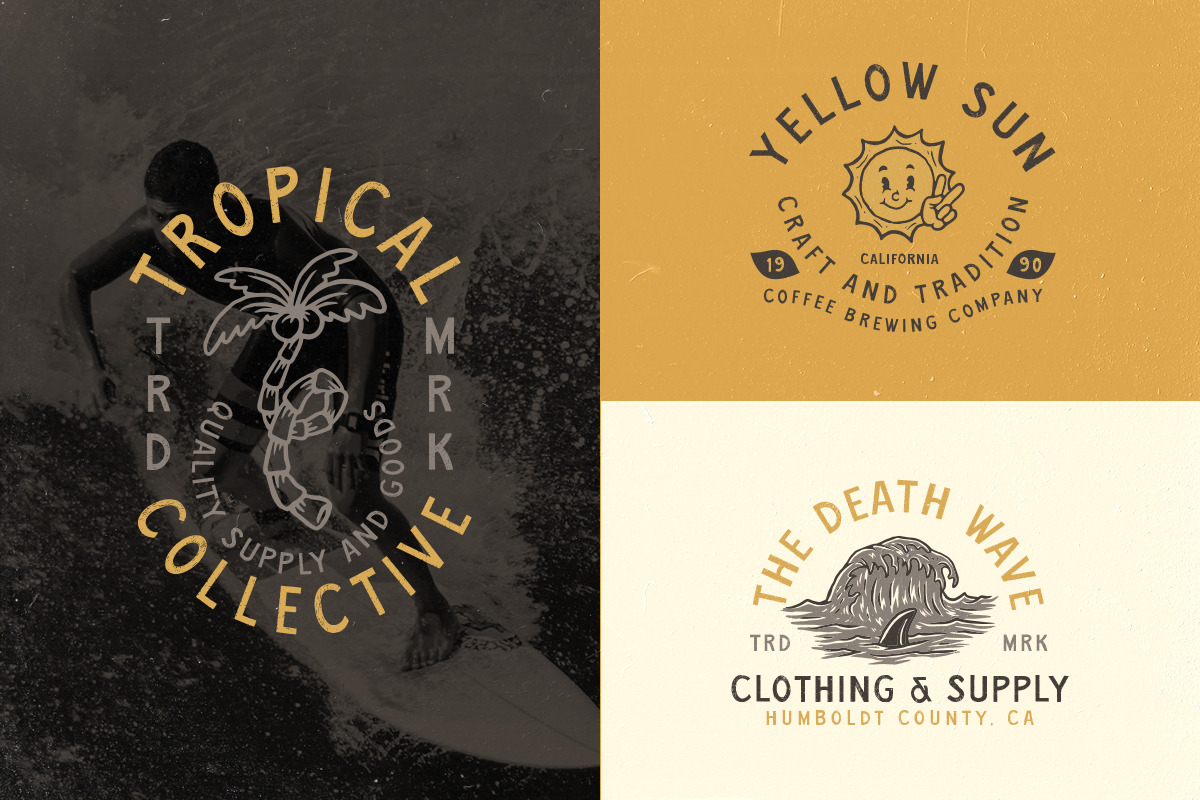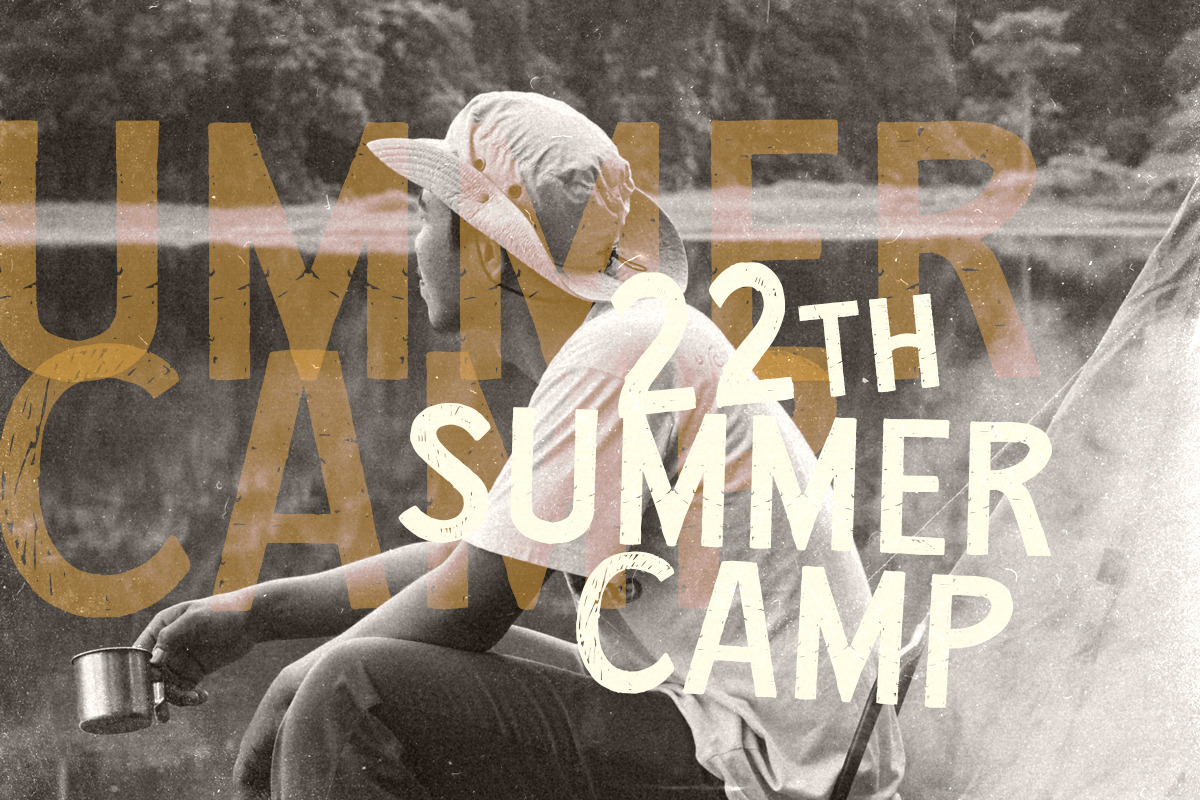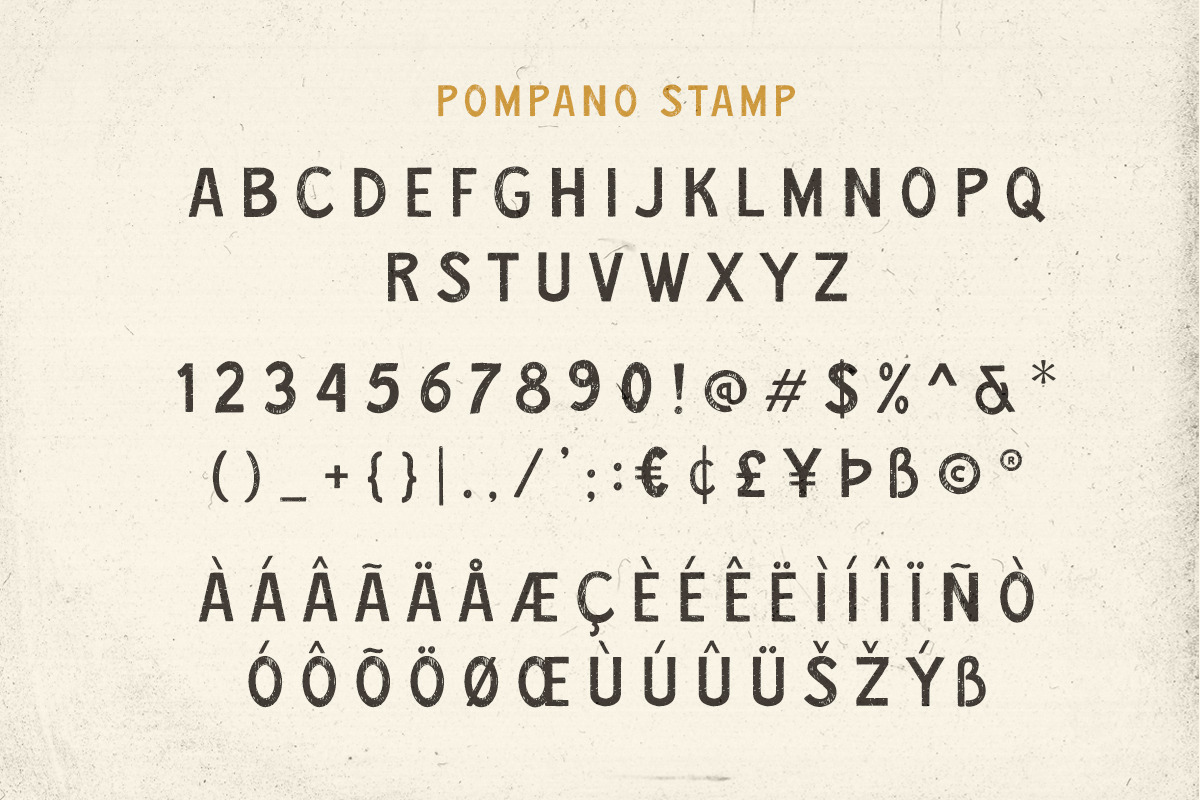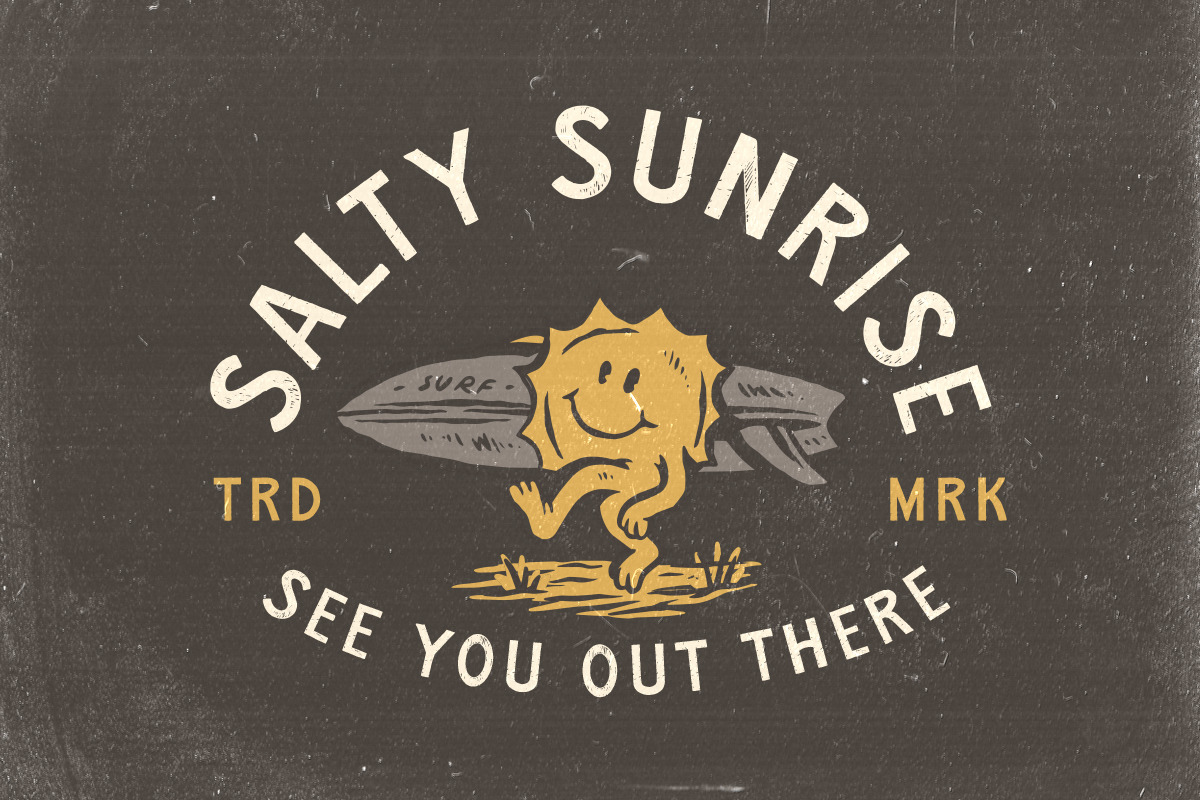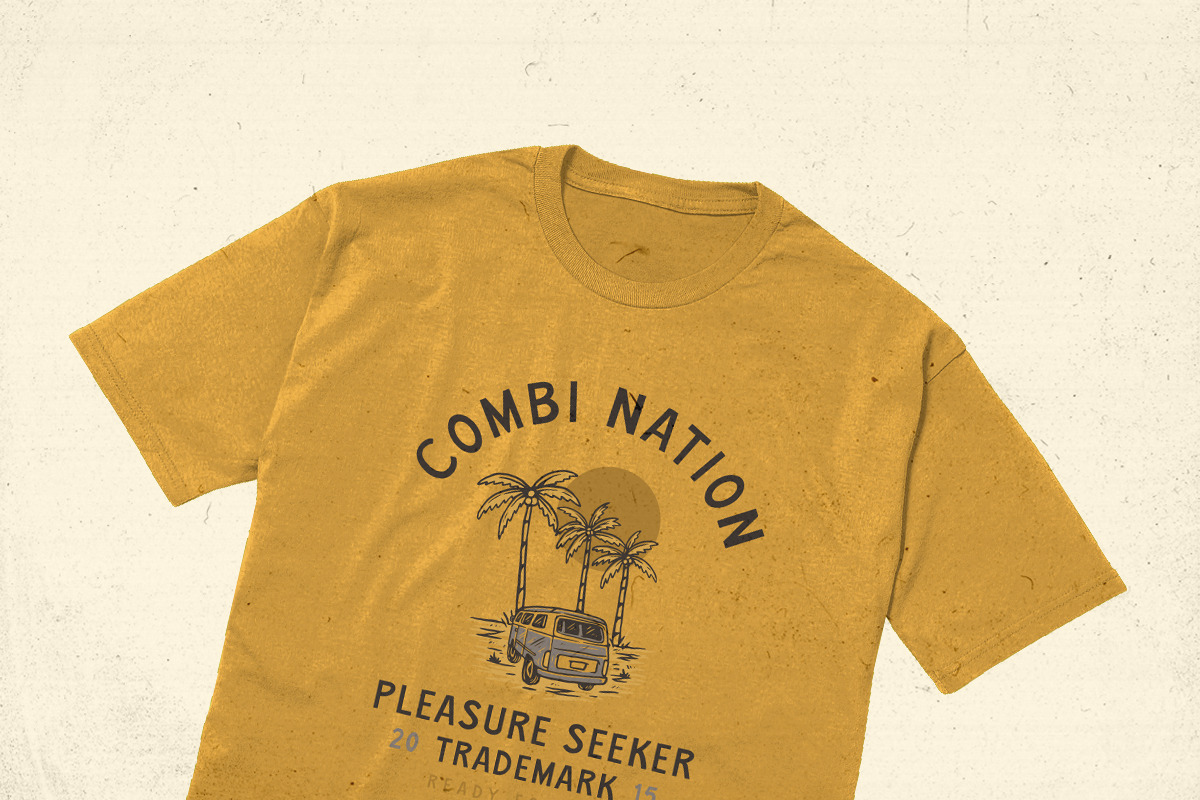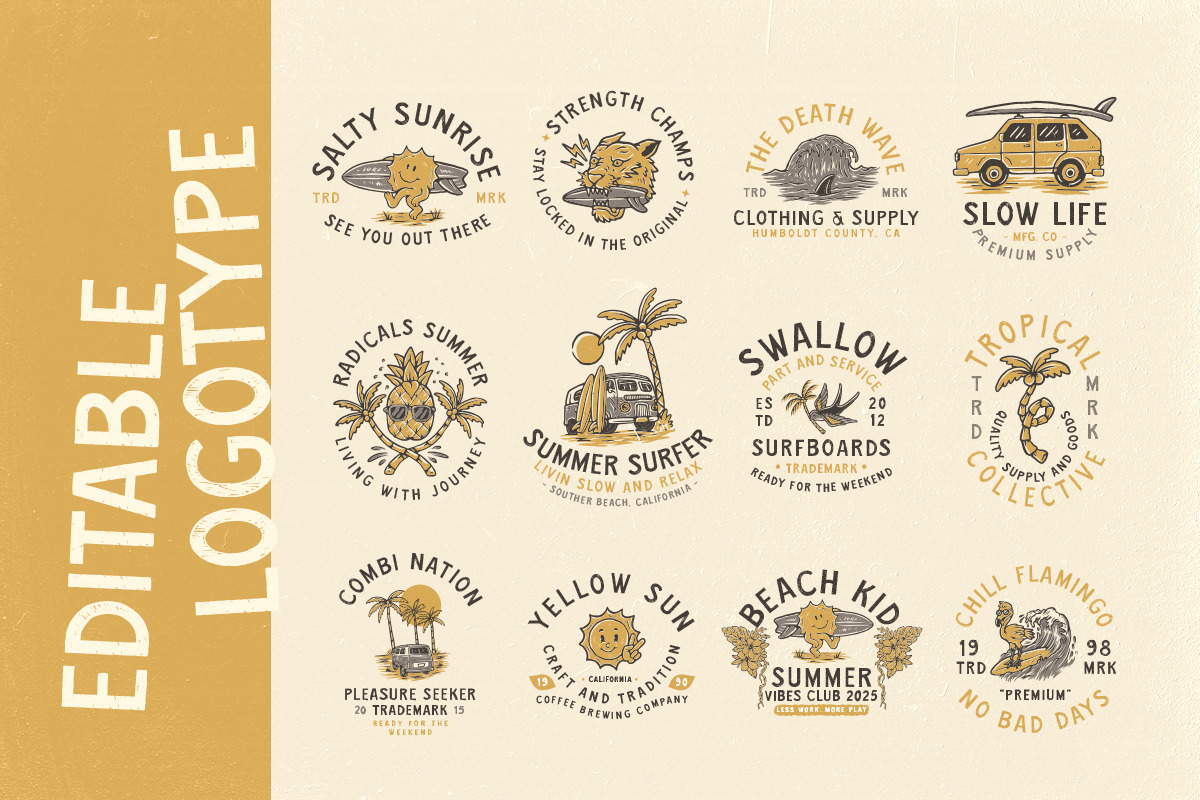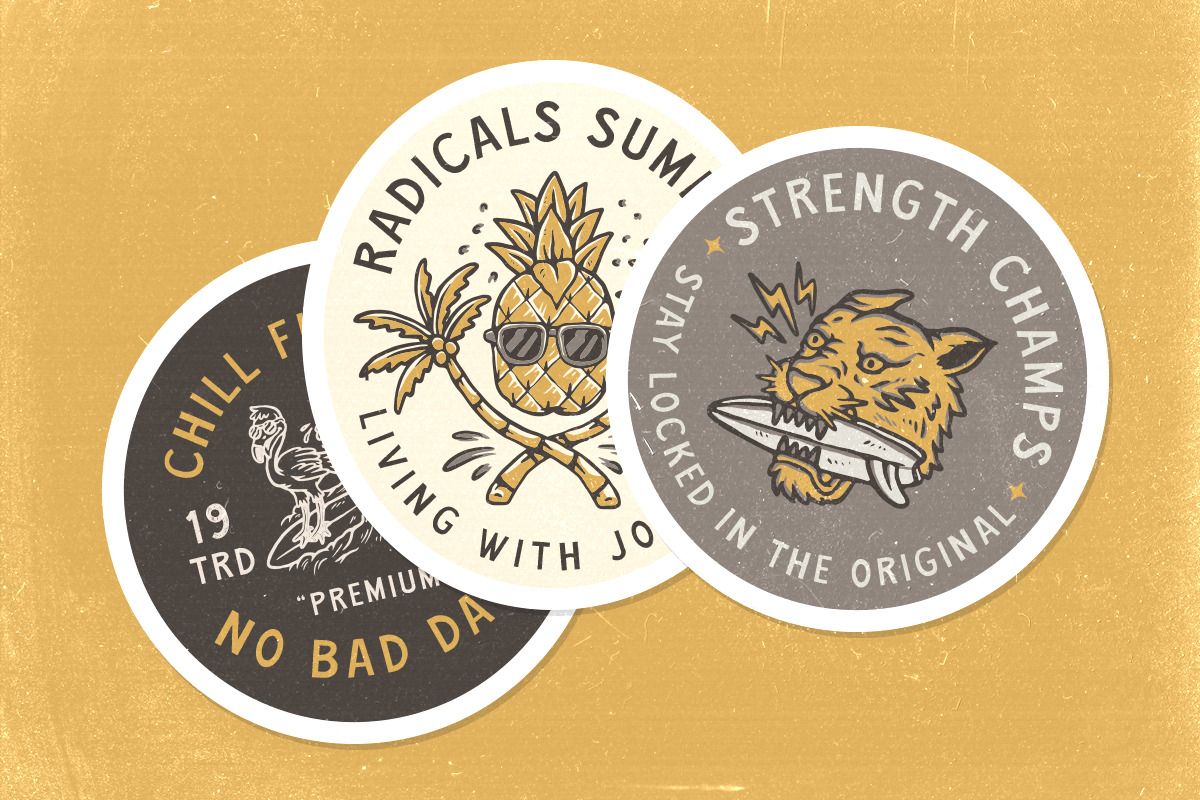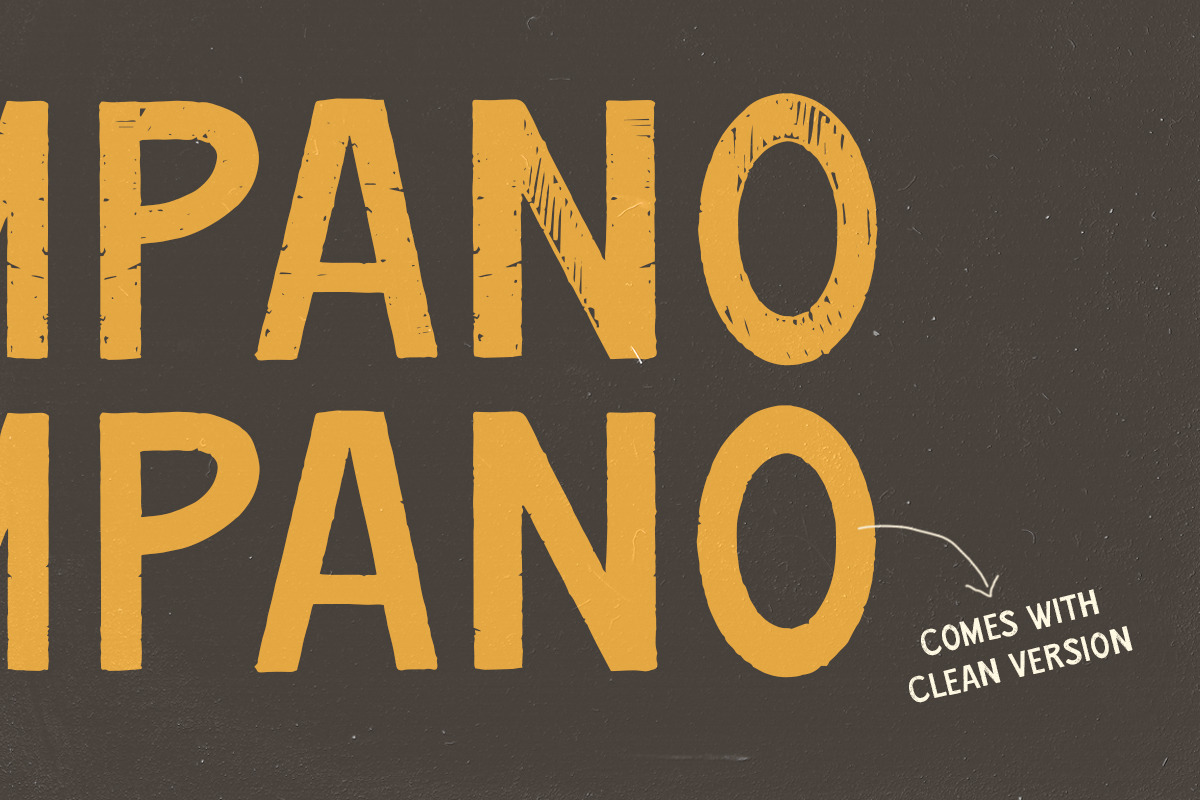
Pompano - Organic Sans (Free Logos!)
Pompano is a organic sans serif typeface which is purposely made for headline, display or logotype. It comes with 12 logo templates. This type of font perfectly made to be applied especially in logo, and the other various formal forms such as invitations, labels, logos, magazines, books, greeting / wedding cards, packaging, fashion, make up, stationery, novels, labels or any type of advertising purpose.
- regular & stamp version
- 12 logo template
- alternates & ligatures